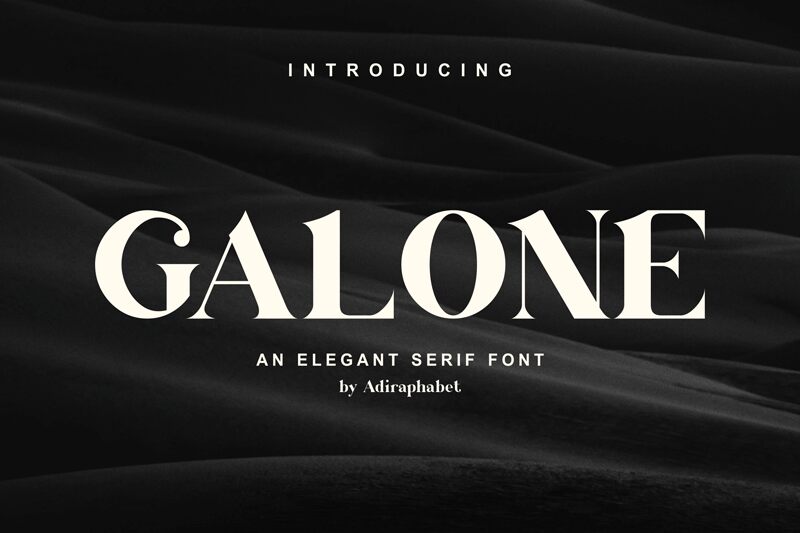
GALONE
\nGalone font by Septo Adi Wicaksono is a free serif font with a bold weight and elegant, stylish, and modern appearance. The characters remain sophisticated regardless of their size which makes each letter impactful yet easily readable at the same time.
Use this refined tool for magazine covers and headlines, body text and titles for books or newspapers, logotypes, and even typography art. Its uses also include stationery branding design like business cards, letters or notebooks; visual merchandise elements like shelves or packaging; poster titles; certificates; invitations; greeting cards amongst many other ideas!